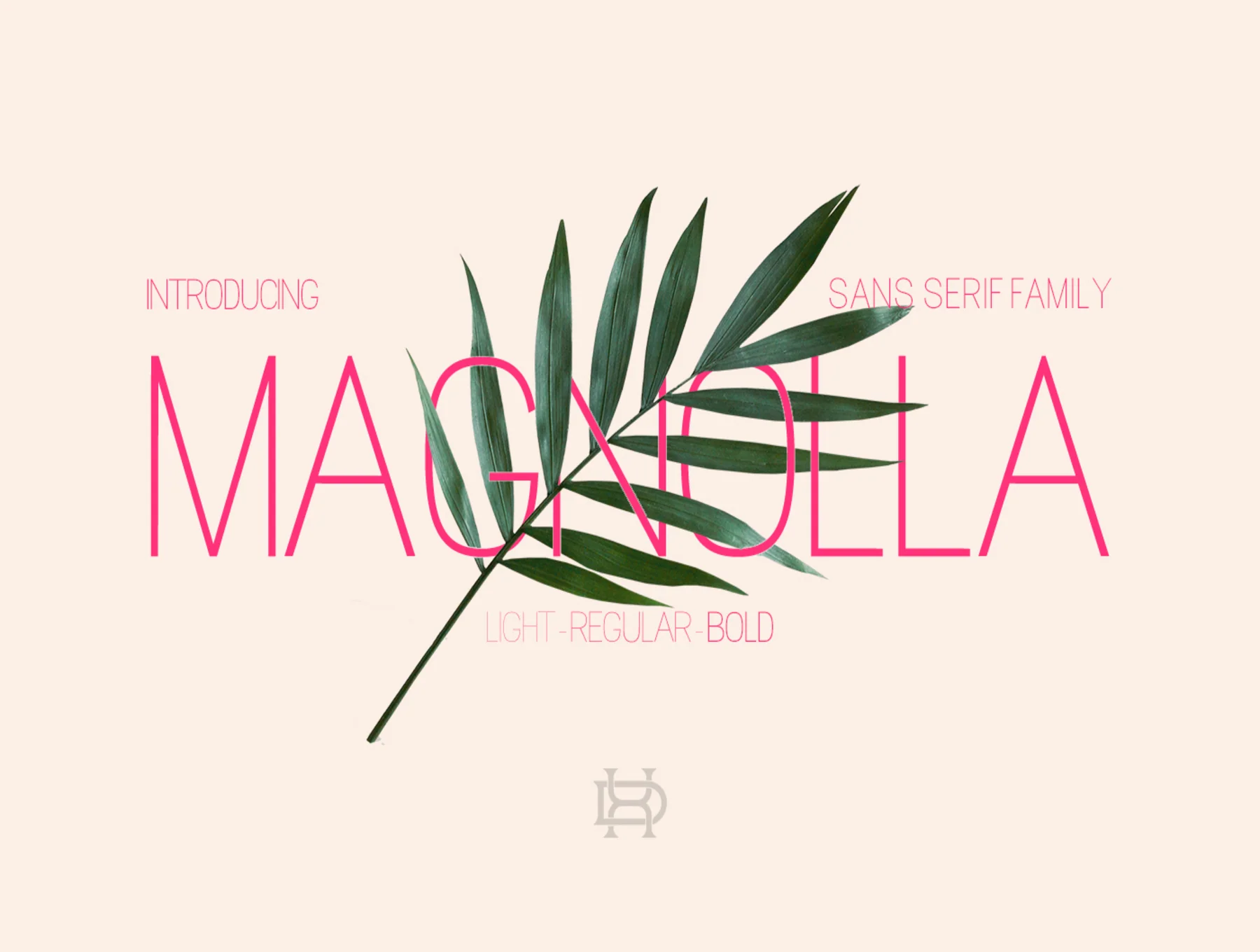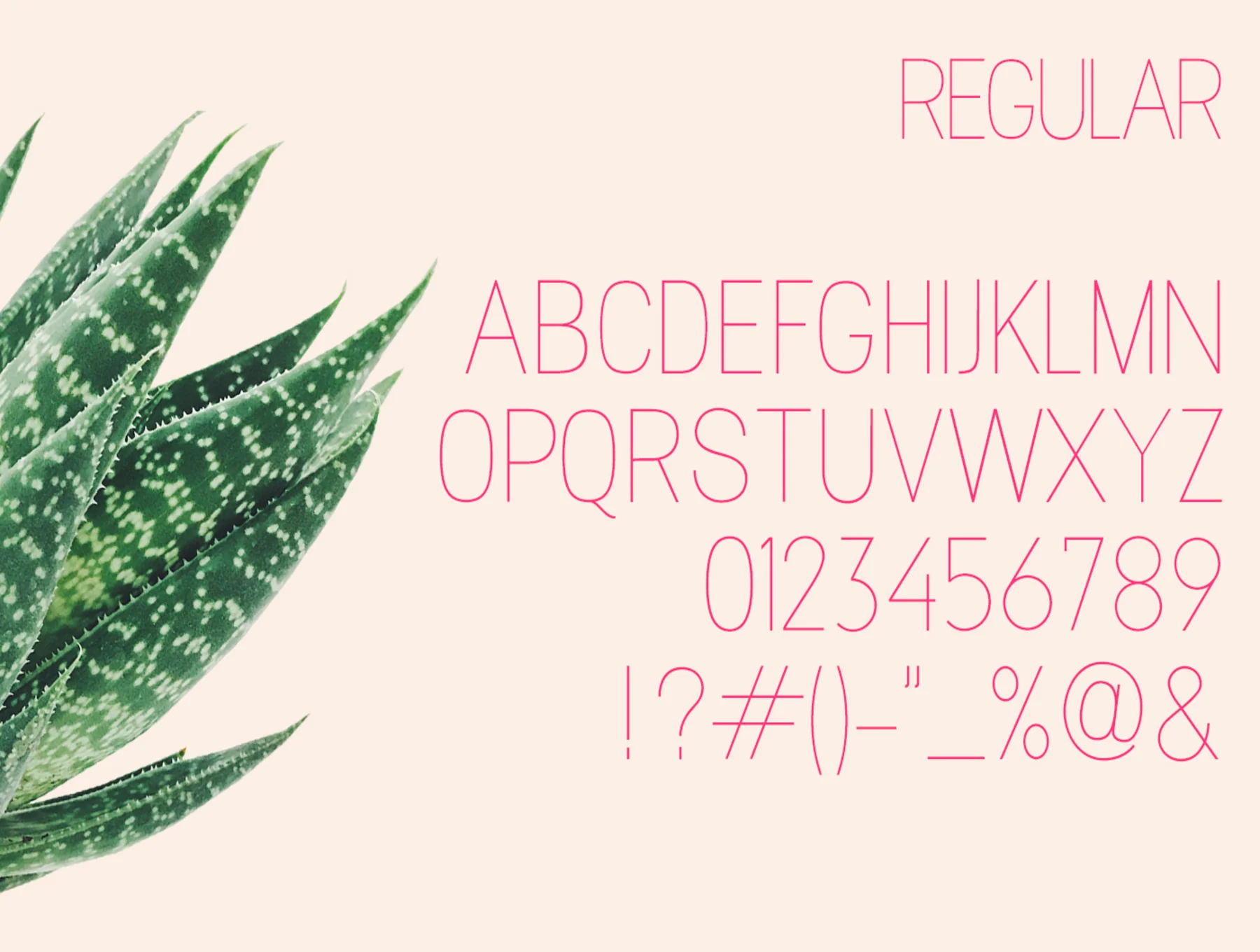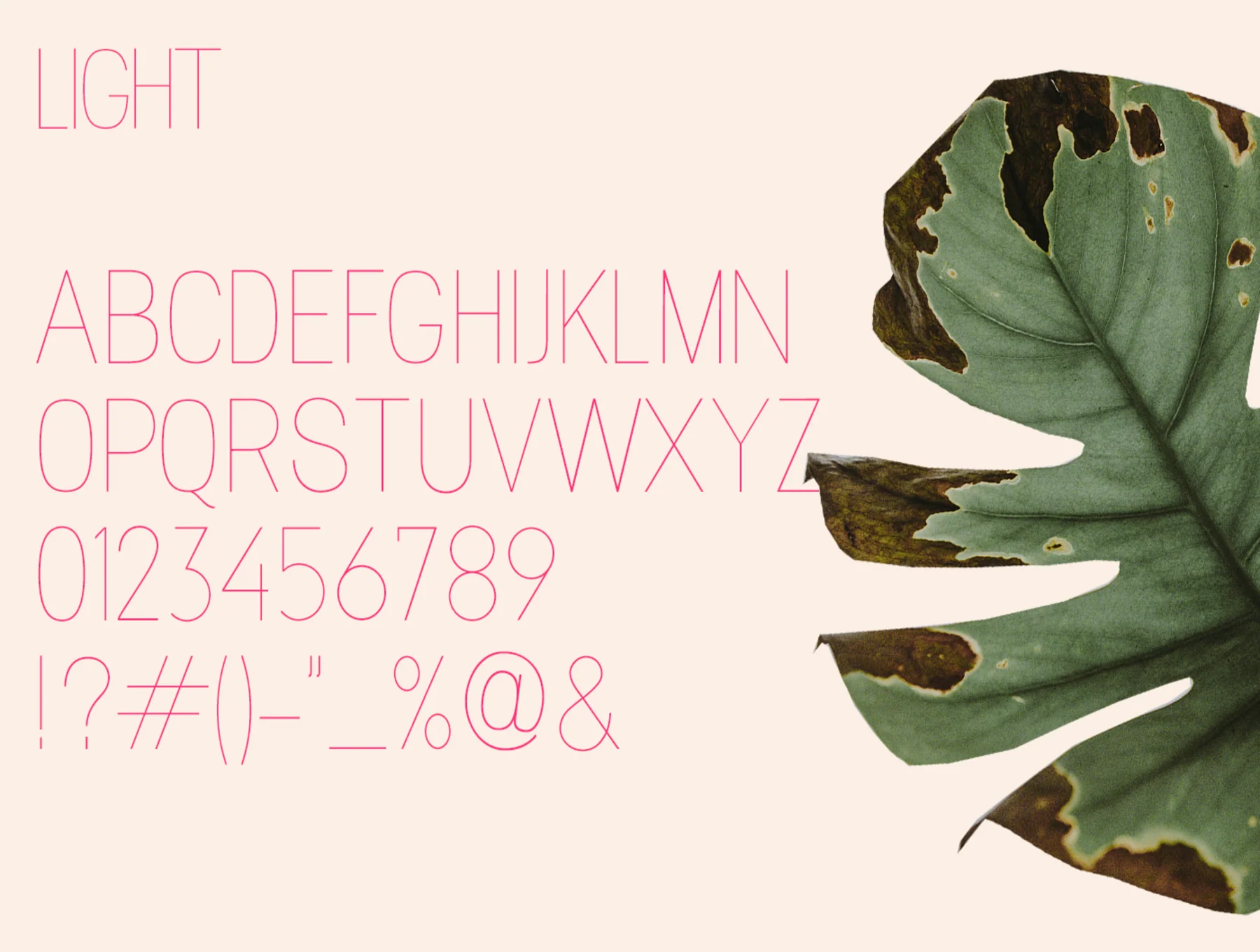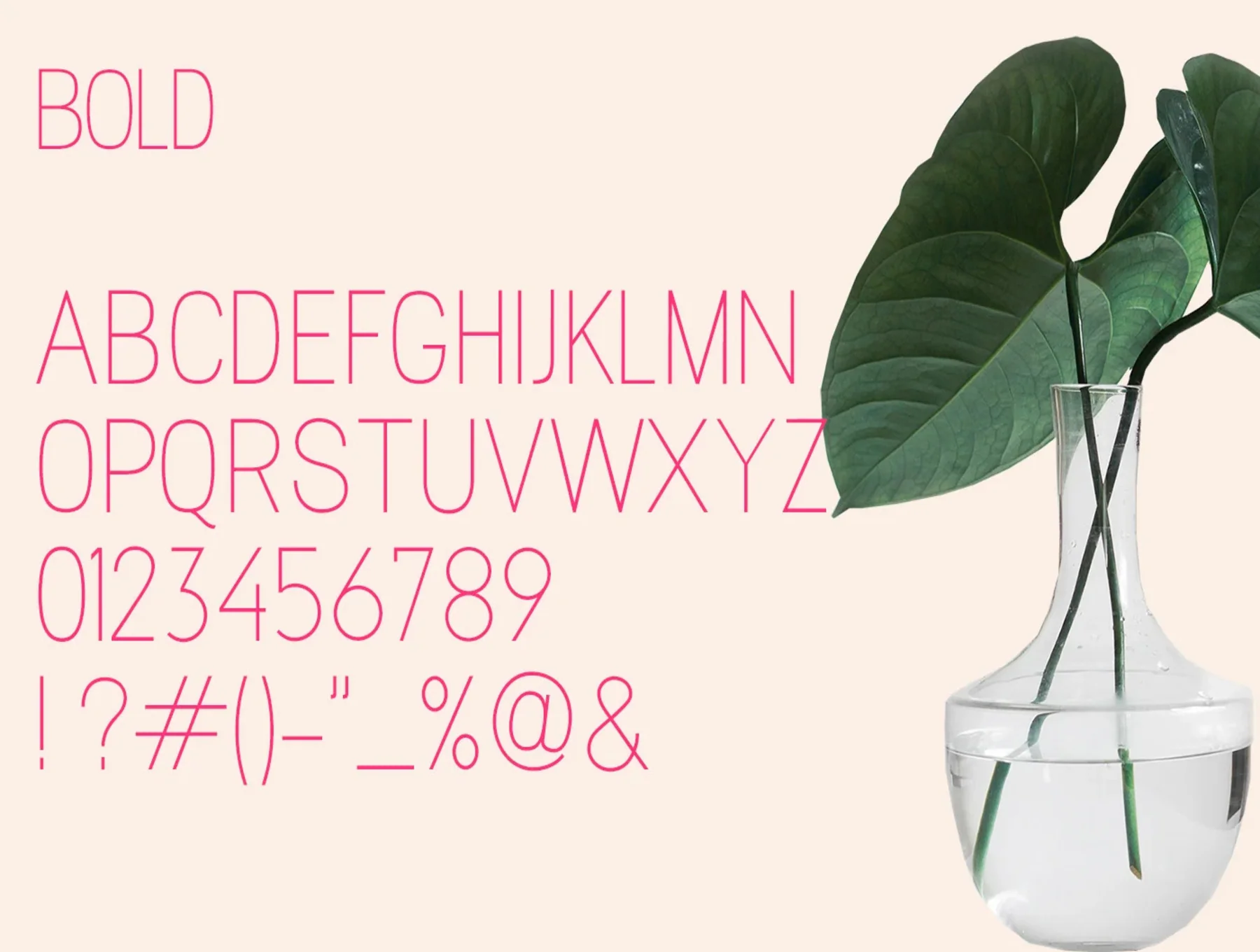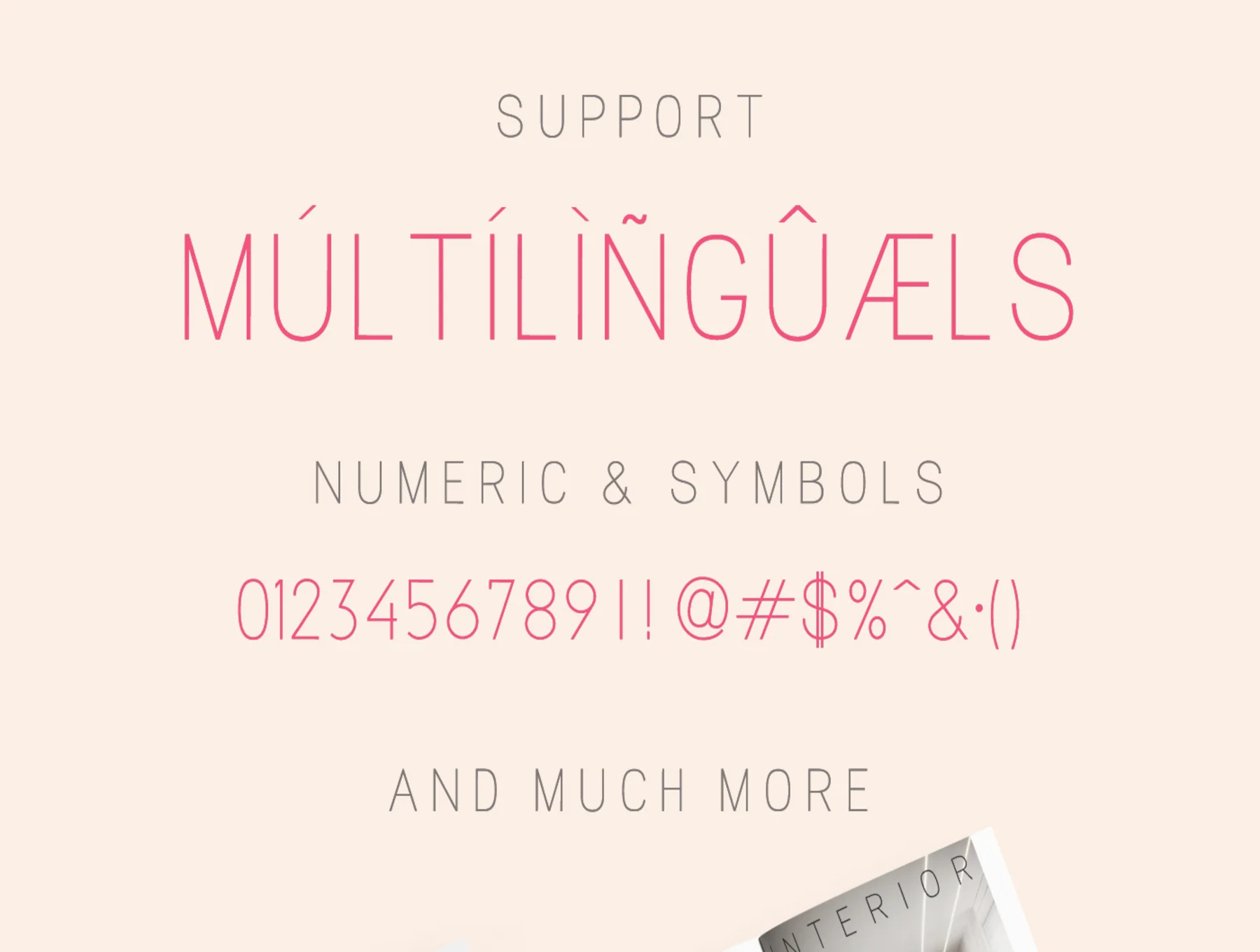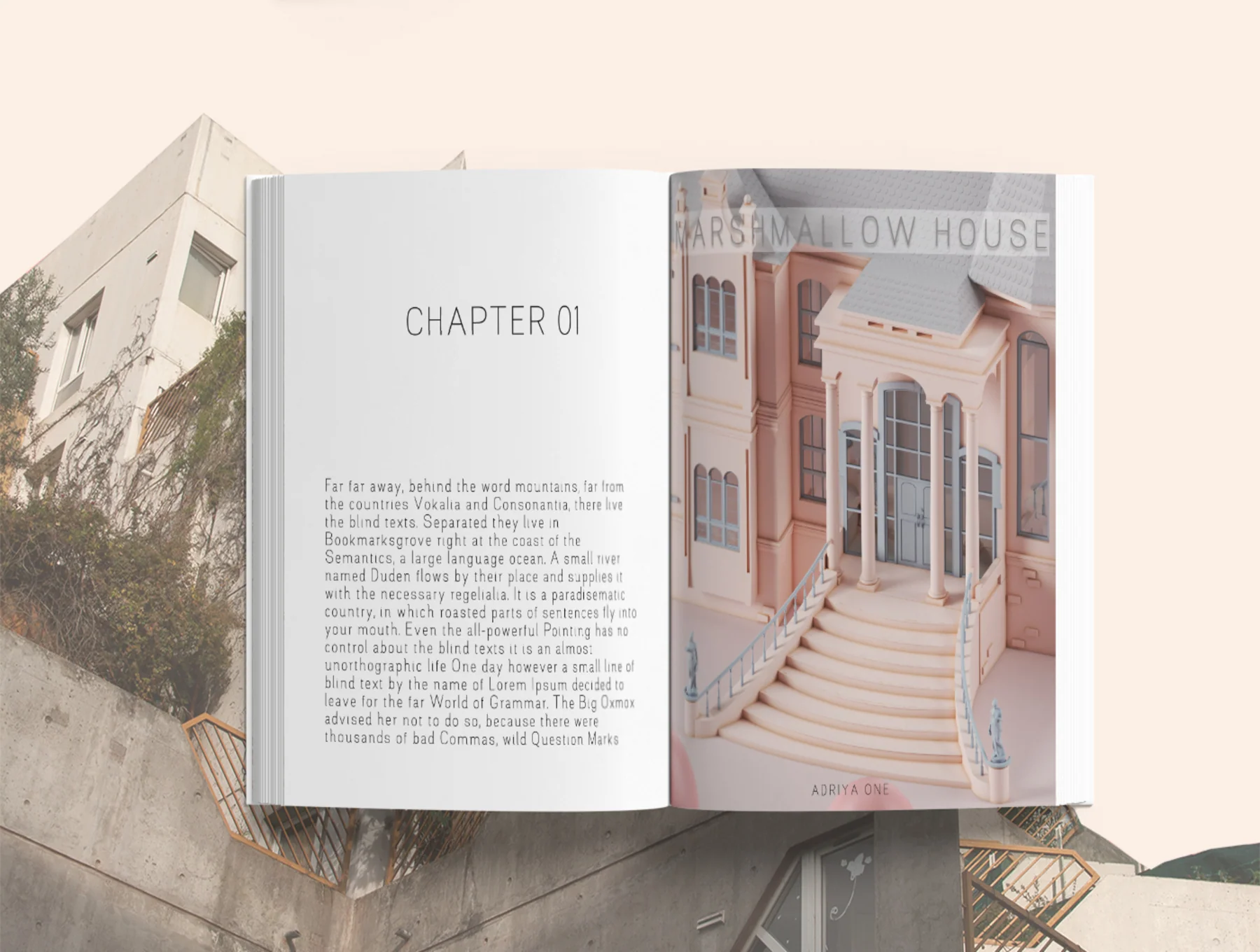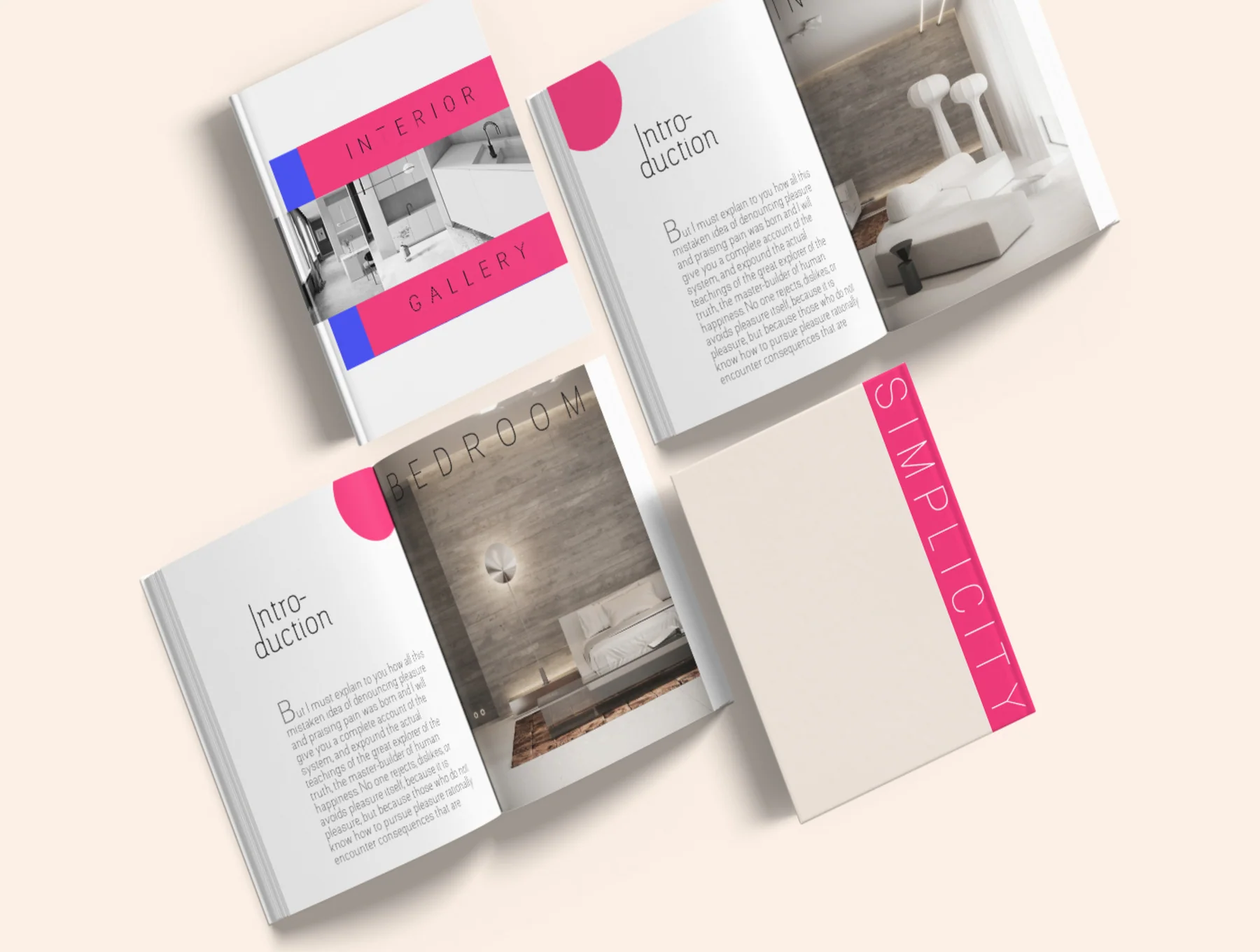
Magnolla Family Font
A refined, minimalist sans serif typeface
Lightweight, standard, and heavy styles
Caps, small letters, numerals, and icons
Magnolla is a refined, minimalist sans serif typeface built for bold contemporary branding. This adaptable font suits logos, magazines, videos, wedding designs, quotes, print materials, packaging, websites, apparel, and more. Multilingual support included. Enjoy!